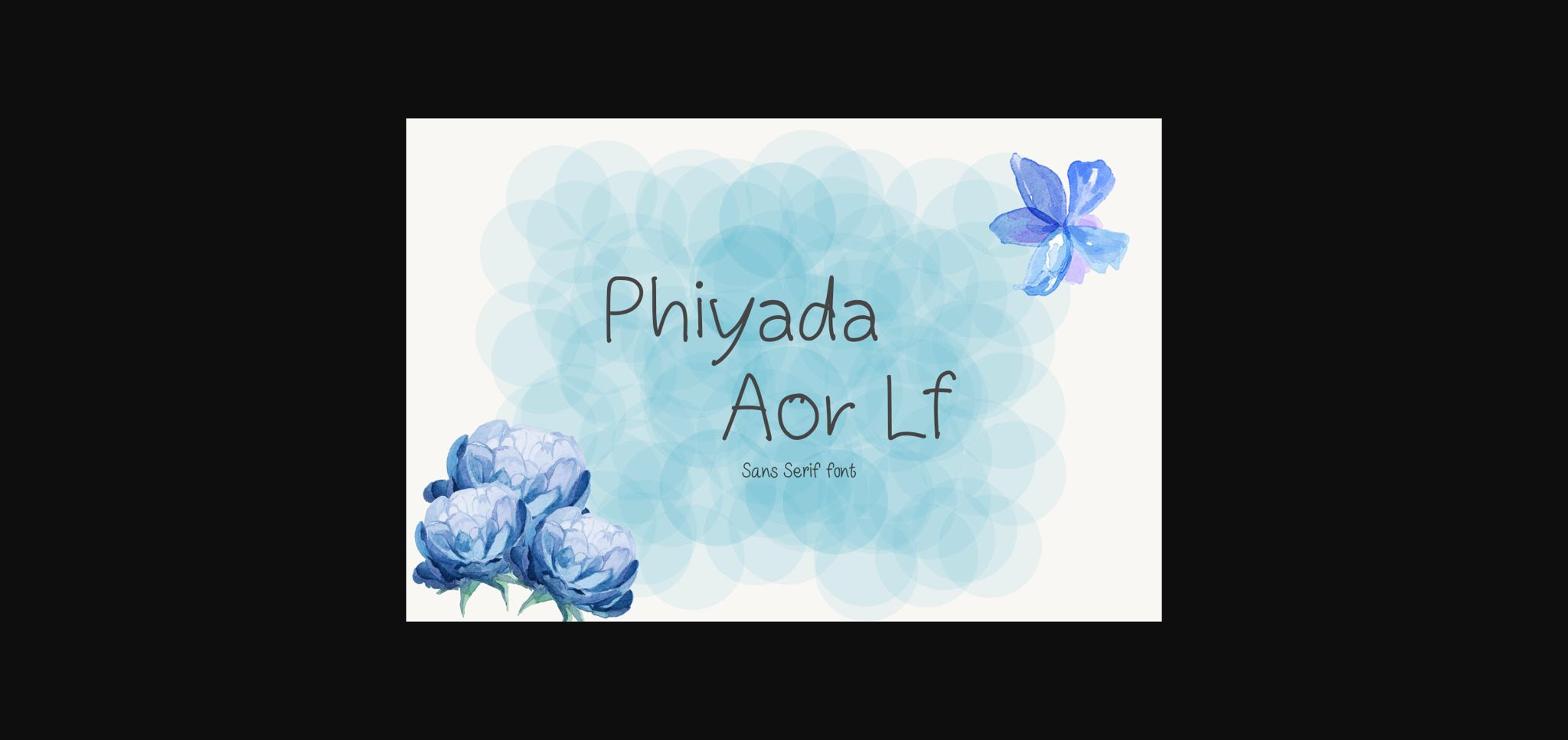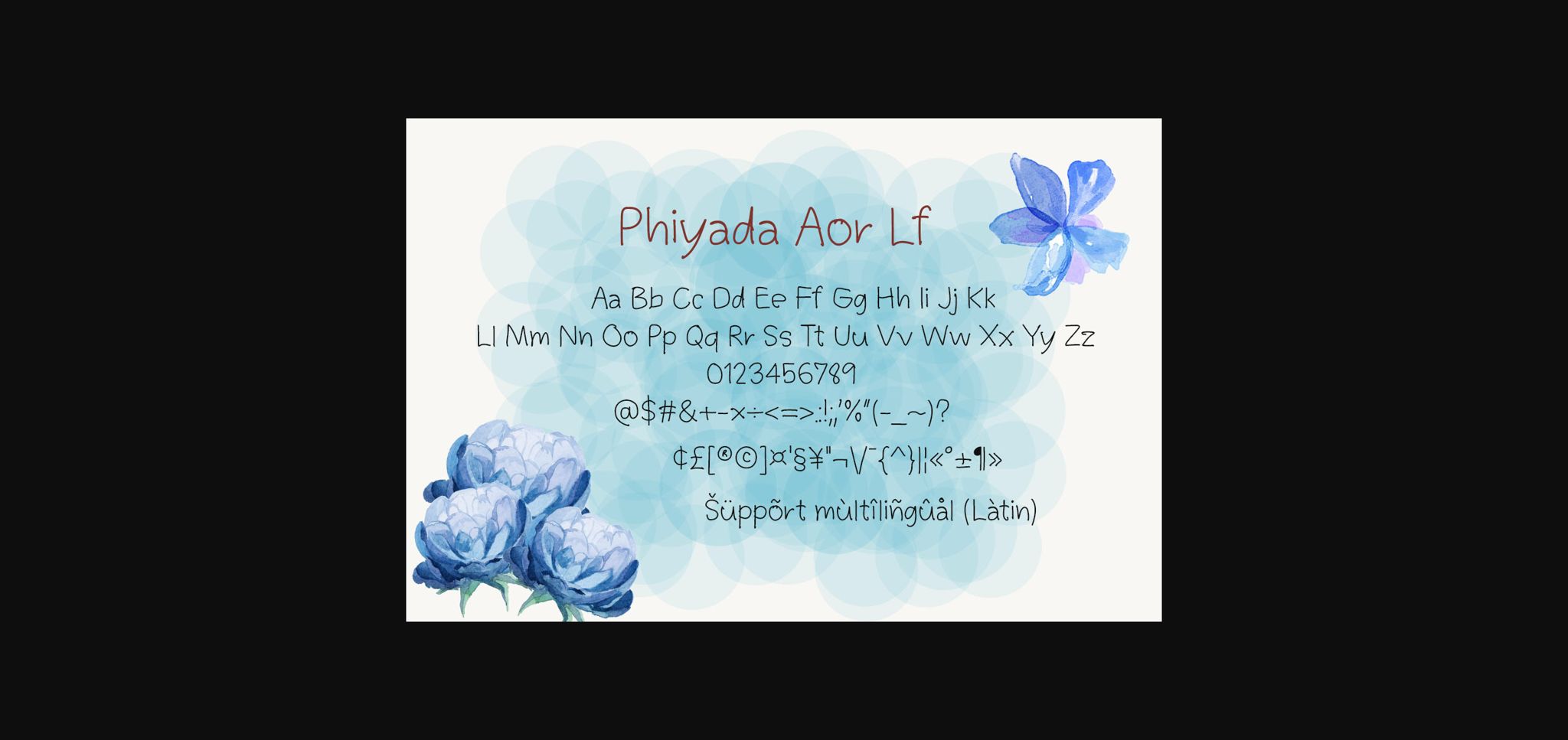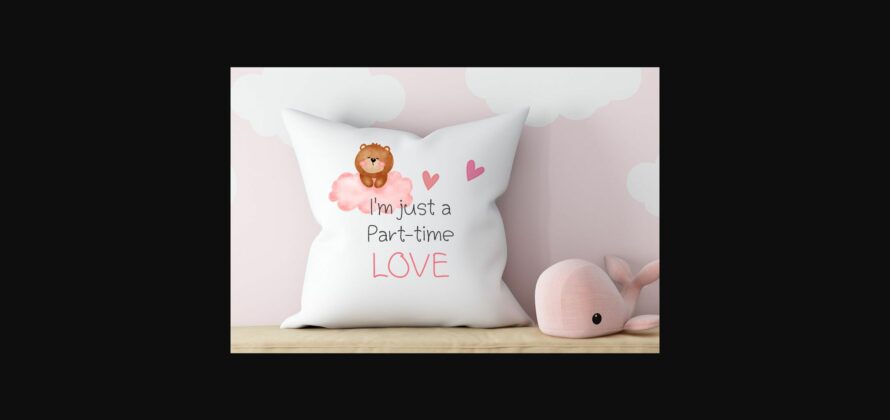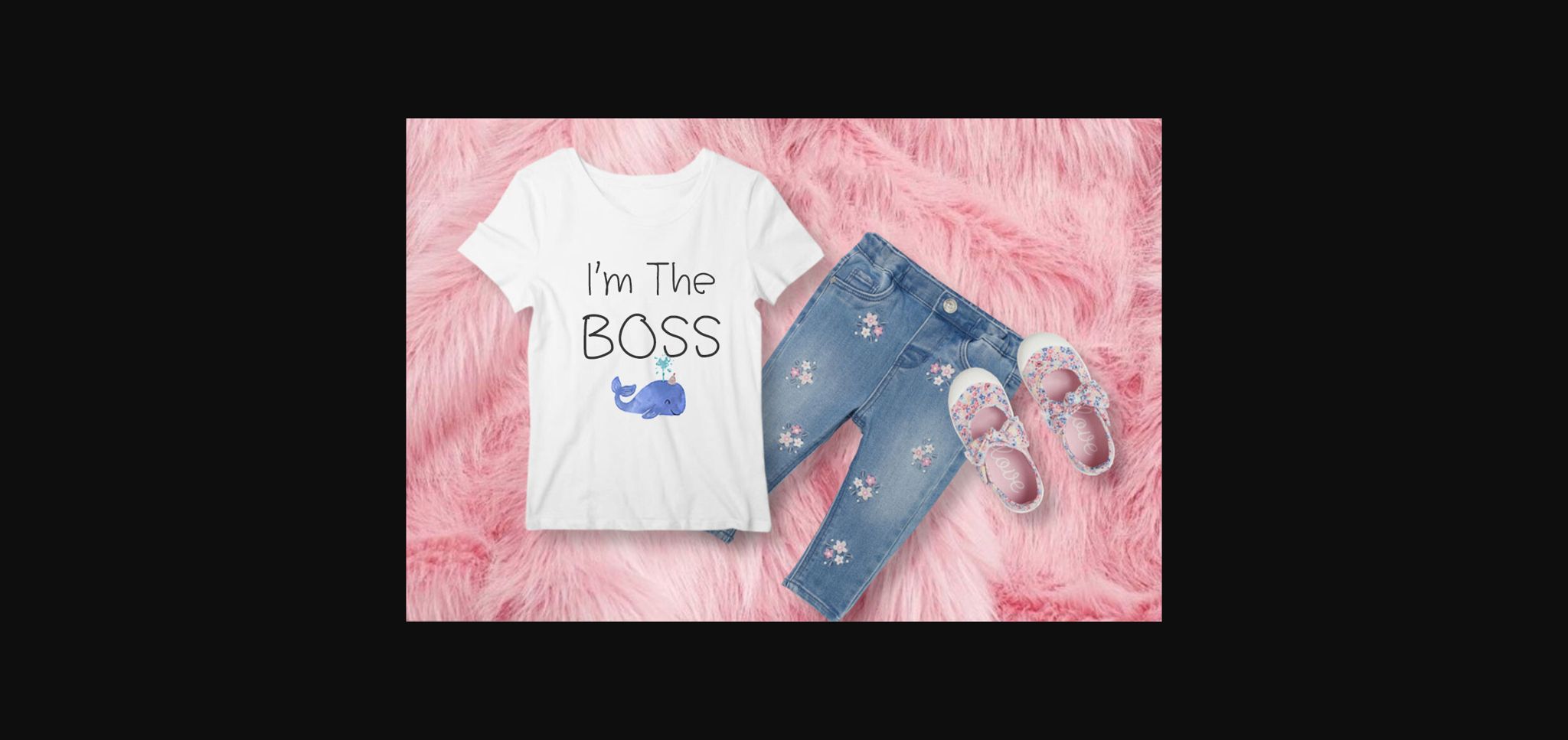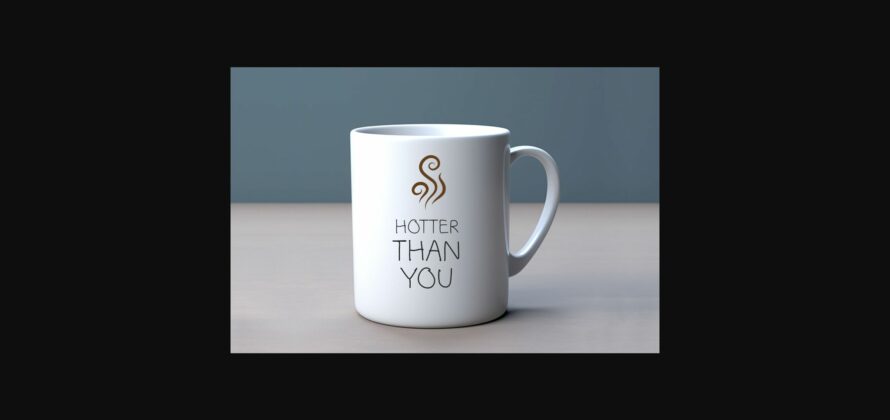
Phiyada Aor Lf Font
About Phiyada Aor Lf Font
Phiyada Aor Lf is a playful, cute and friendly sans serif font. It would be awesome to your fun projects or diary planner, on wedding invitations, thank you cards, quotes, greeting cards, logos, posters, blogs, bag, T Shirt, clothing and other designs.